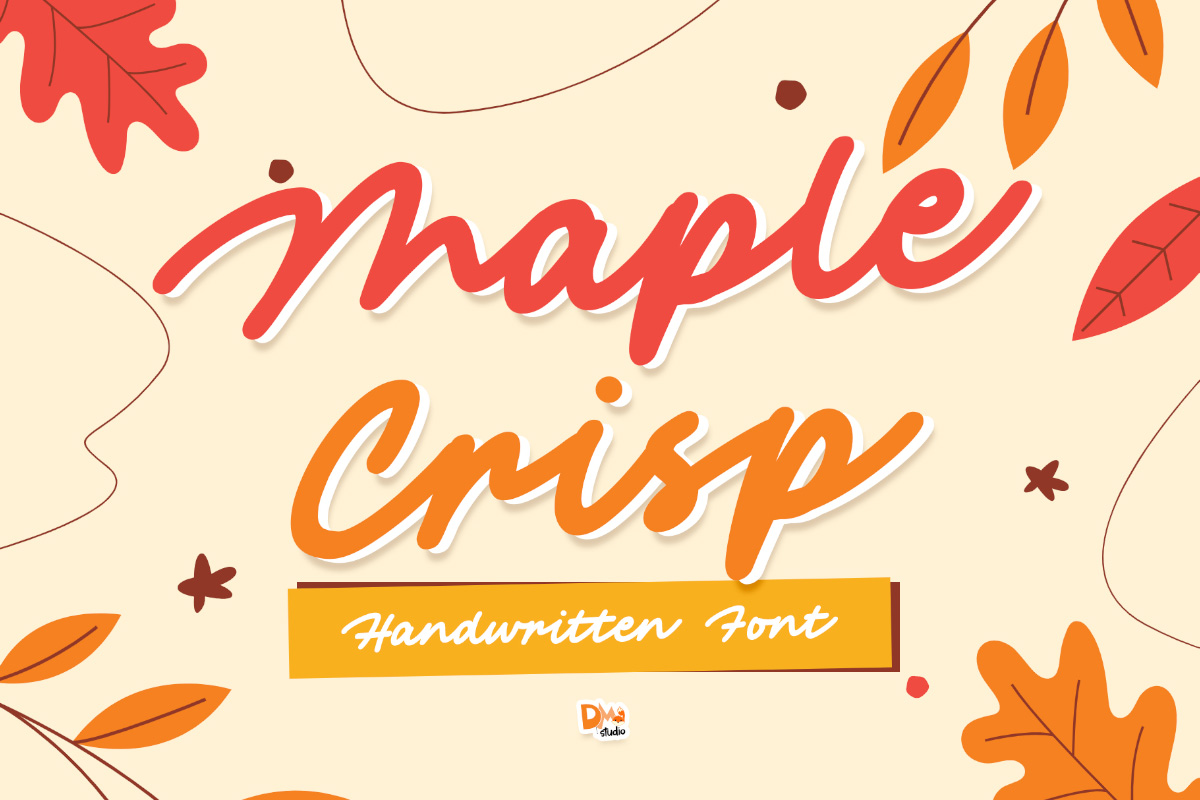
Maple Crisp Font
Maple Crisp Font is a versatile and stylish typeface designed to add warmth and character to your designs. With its crisp letterforms and elegant style, this font is perfect for a wide range of applications, including branding, packaging, posters, and more. Elevate your projects with the timeless appeal of Maple Crisp Font.
1. Versatile and Stylish: Maple Crisp Font offers a versatile and stylish design, suitable for various design projects.
2. Crisp Letterforms: The font features crisp and clear letterforms, ensuring excellent readability across different mediums.
4. Uppercase and Lowercase Letters: Maple Crisp Font includes both uppercase and lowercase letters, providing versatility in typography.
5. Punctuation and Symbols: Comprehensive set of punctuation marks, numerals, and symbols for seamless integration into your projects.